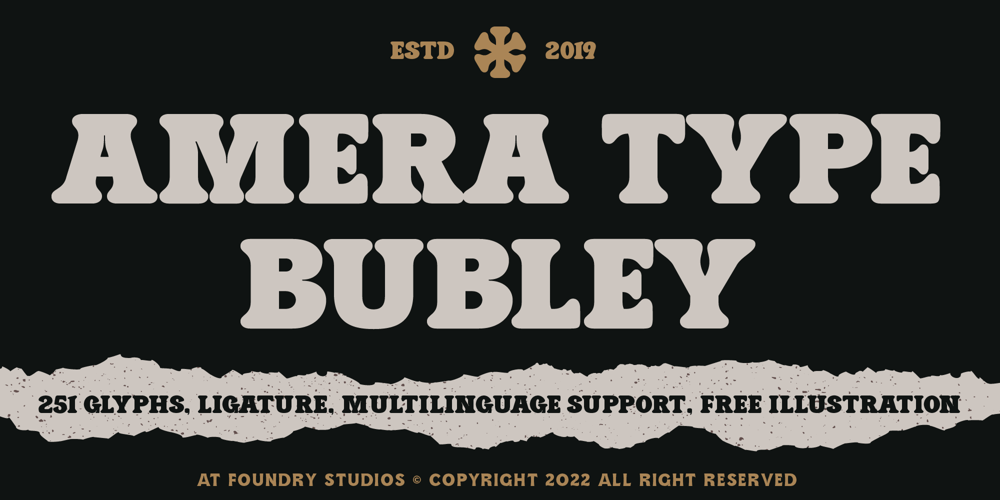
AT Bubley
AT Bubley font
AT Bubley Font Family was designed by Cahyadi Ikhsan and published by Amera Type. AT Bubley contains 1 styles and family package options. Inspired by the archive of music flyers and skateboarding magazine created in the early 90s. Bubbley is made for the purposes of making posters, magazine headers, book titles, flyers and other print media. Bubbley is made for digital needs that are more modern but still have a vintage feelEvery line and curve in letterform is made for the needs of the future industry, the latest version in the modern lettering industry. Bubbley is very suitable to be combined with the illustrations that we provide for free, to complete your needs